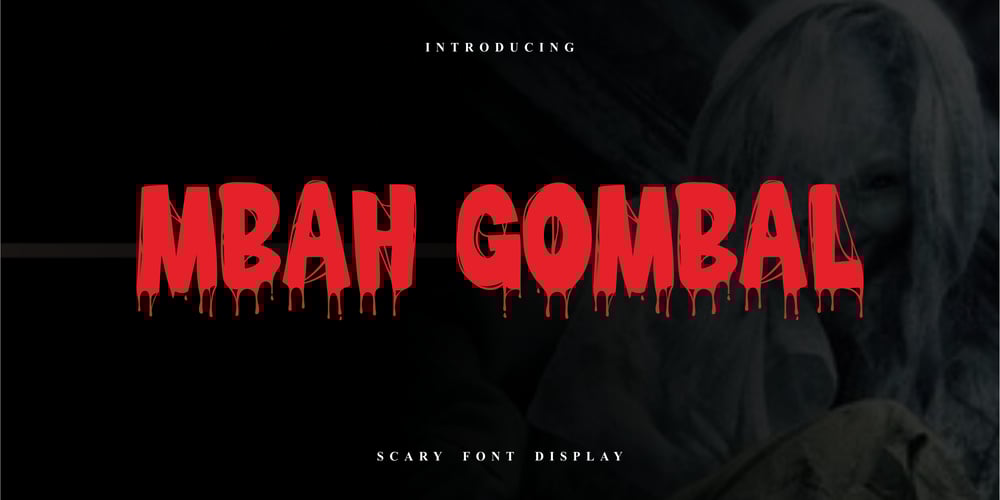
Mbah Gombal Font Family was designed by Akhmad Afandhi and published by Evo Studio. Mbah Gombal contains 2 styles and family package options. Immerse yourself in the haunting charm of mbah gombal, a distinctive display font with a spooky twist. Its macabre appeal makes it a great choice for Halloween-oriented themes or any project inspired by macabre aesthetics. Harness the power of its unique and macabre style to give voice to your most macabre conceptions.